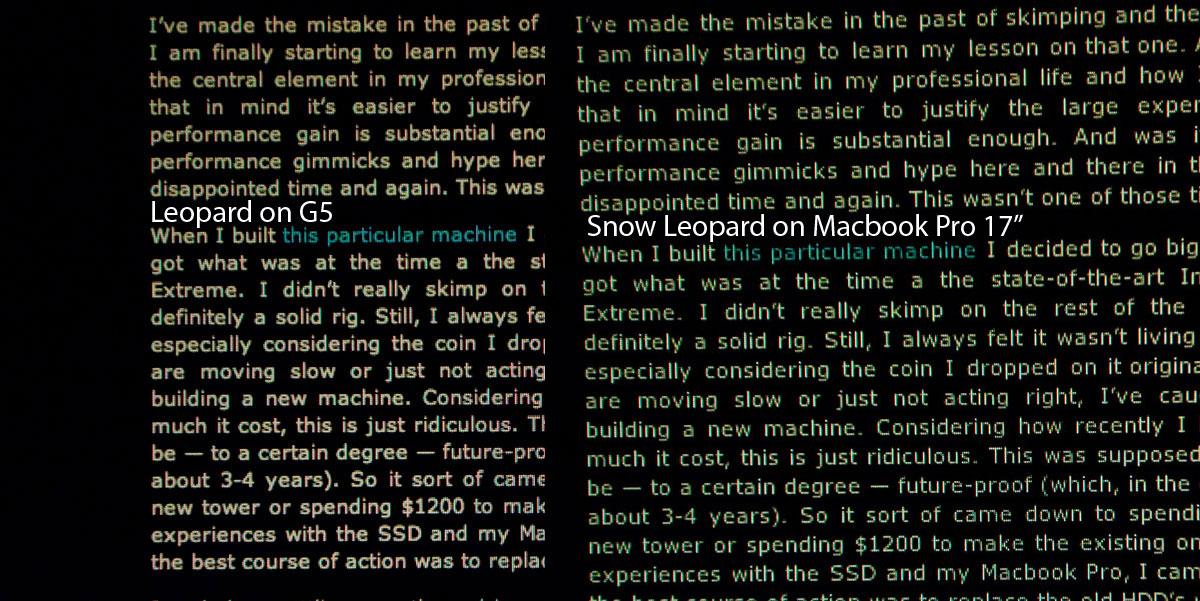
I'm having very frustrating font rendering issues with my NEC 2690WUXi2 display hooked up via DVI-D to my 17" Macbook Pro (just bought last week).
I've attached some images (taken with a camera -- not screen grabs), that illustrate the font rendering issue with Snow Leopard. The text looks as if it's rendering "off-pixel". Images are fine.
I've spent all morning on the phone with Apple and NEC and have changed all hardware settings (on the NEC) and software settings (on the Macbook Pro), and am unable to resolve the issue. Apple claims that it's likely the NEC driver provided by NEC for OSX. NEC did not deny the possibility, but said it's more likely the new font rendering engine in Snow Leopard, or that it also could be the video card driver (ATI).
Either way, please have a look at the attached images. It's not as clear from these pictures, which are zoomed, but it really looks kind of bad when viewing the screen in person. Text is legible, but I would be pretty pissed if this is the new norm for Snow Leopard. Any ideas would be much appreciated.
You were probably using subpixel antialiasing (LCD font smoothing) in Leopard. The problem is Snow Leopard removed the font smoothing options and replaced it with a single "Use LCD font smoothing when available" option, which doesn't do anything with most third-party LCD monitors. The old options are still there internally, but it's hidden.
Then log out and log back in (or reboot). That will set the font smoothing to what used to be the "Light" option. "Medium" would be 2 instead of 1, but I think "Light" is better.
Font rendering has been worse since moving from a G4/OS X 10.4 to a MacMini with 10.6 (upgrading to 10.6.4 this morning didn't make any difference to text display).
On some font sizes, previously it was difficult to to tell if it was an "n" or an "m", depending on the exact position of the window. Character width changed as the window was moved, and text could seem blurred - like an over-zoomed pdf.
But now the text just moves without changing shape - brilliant!